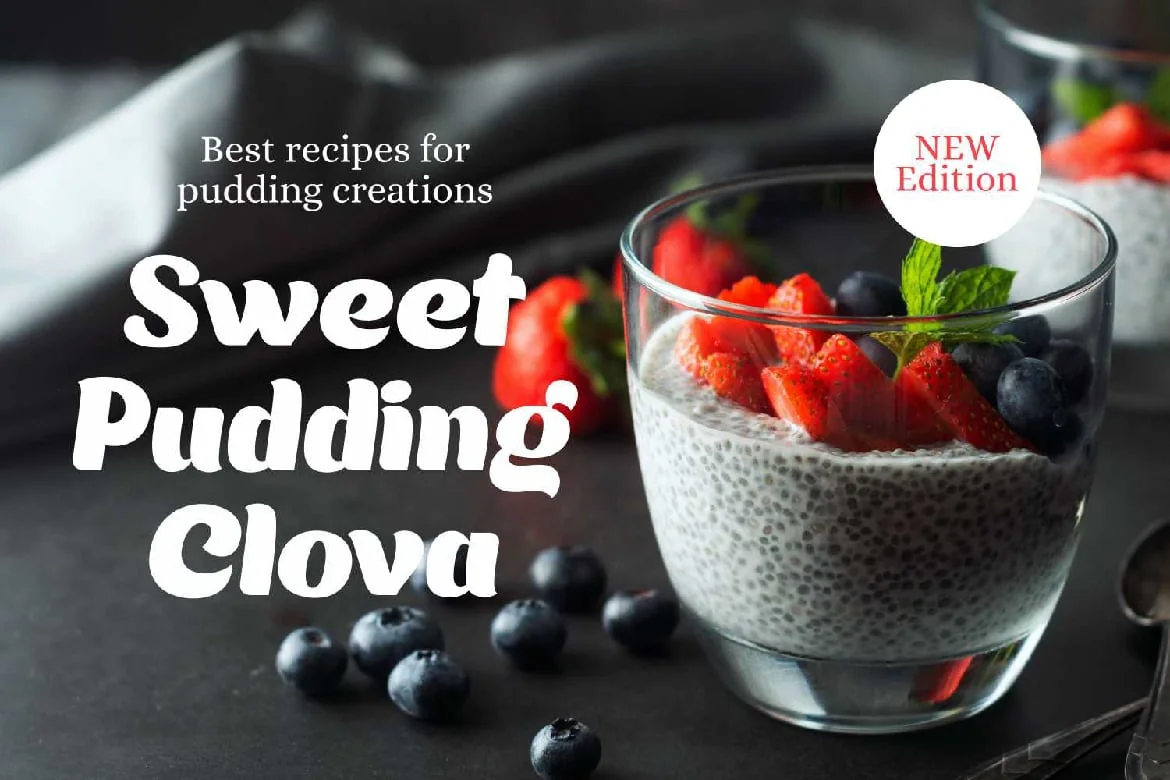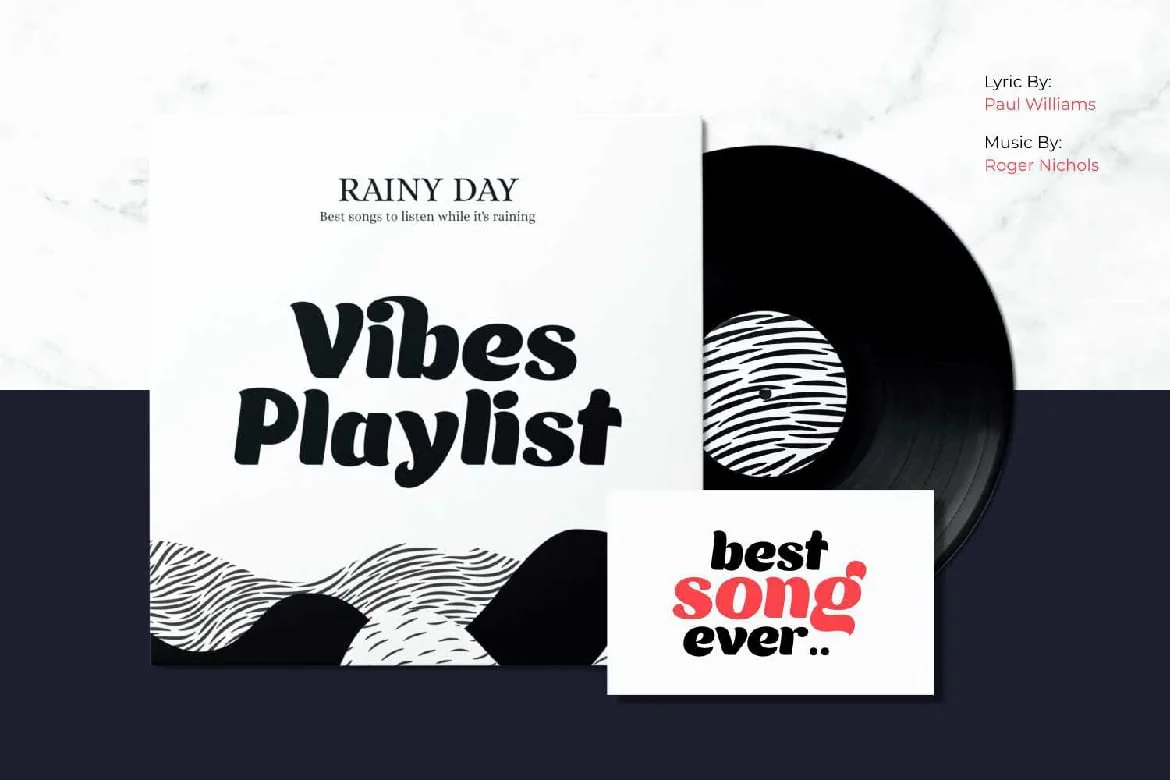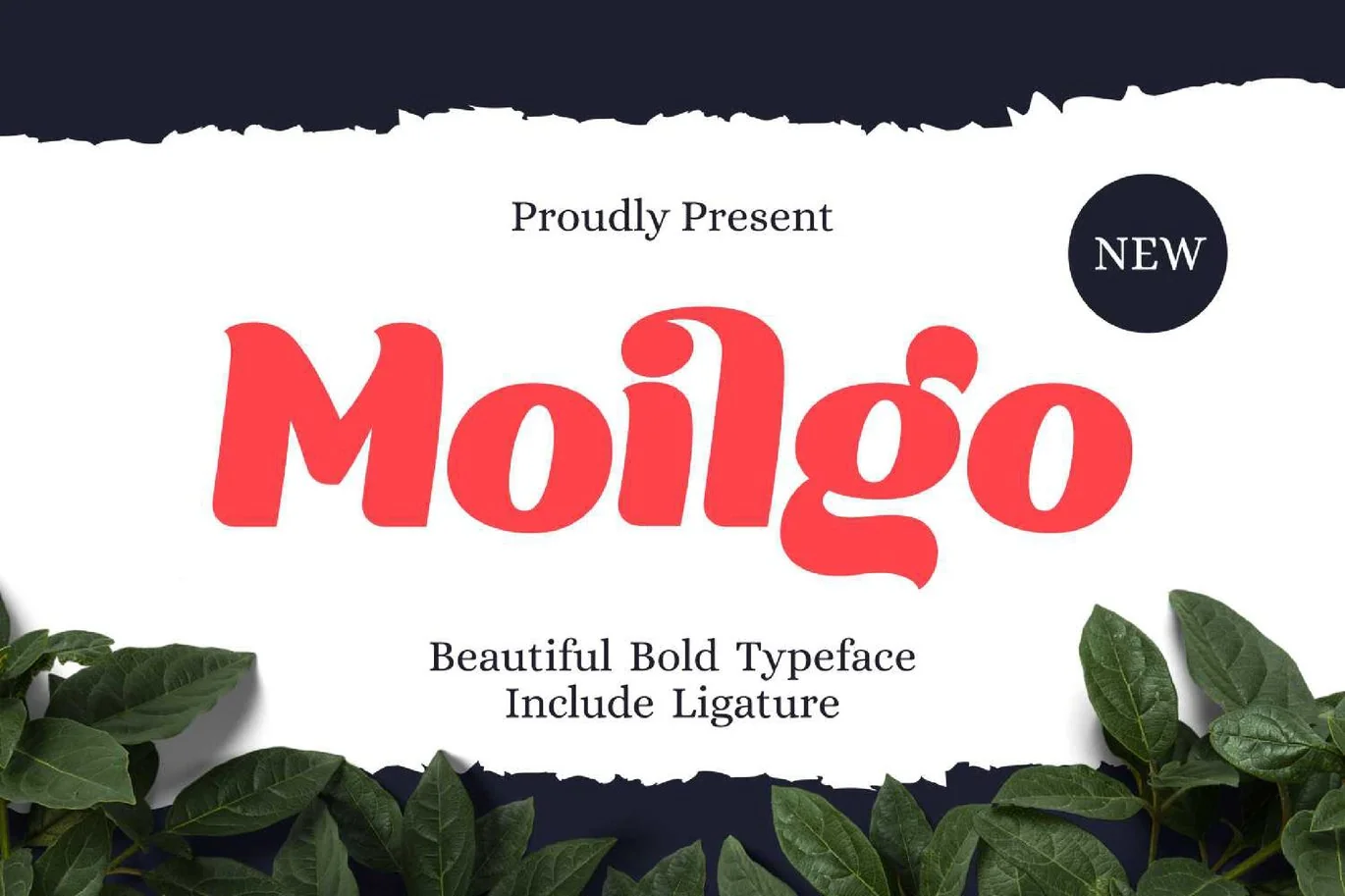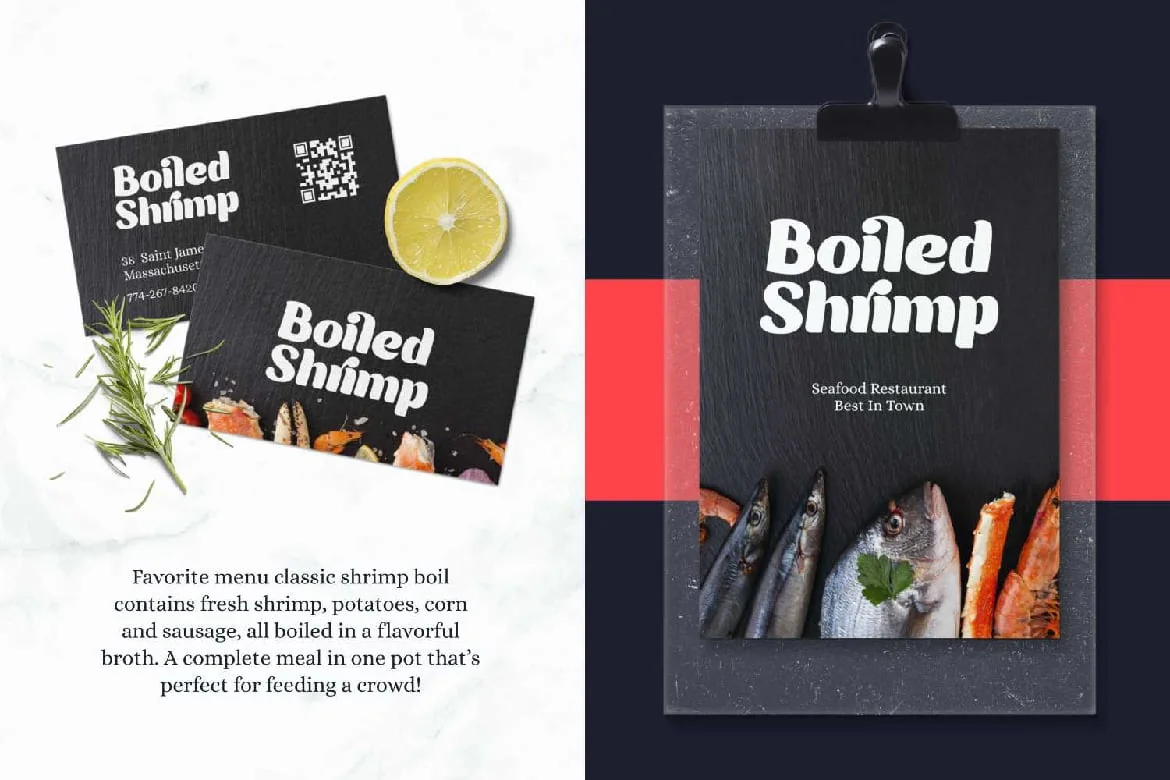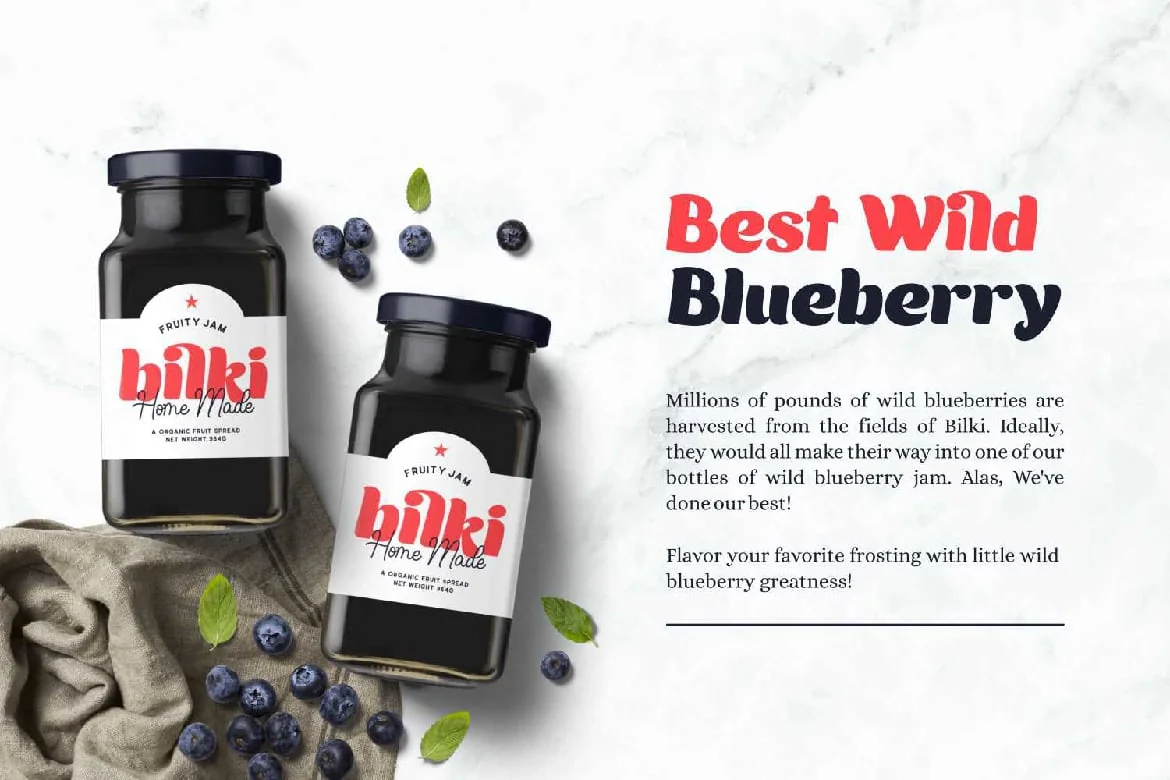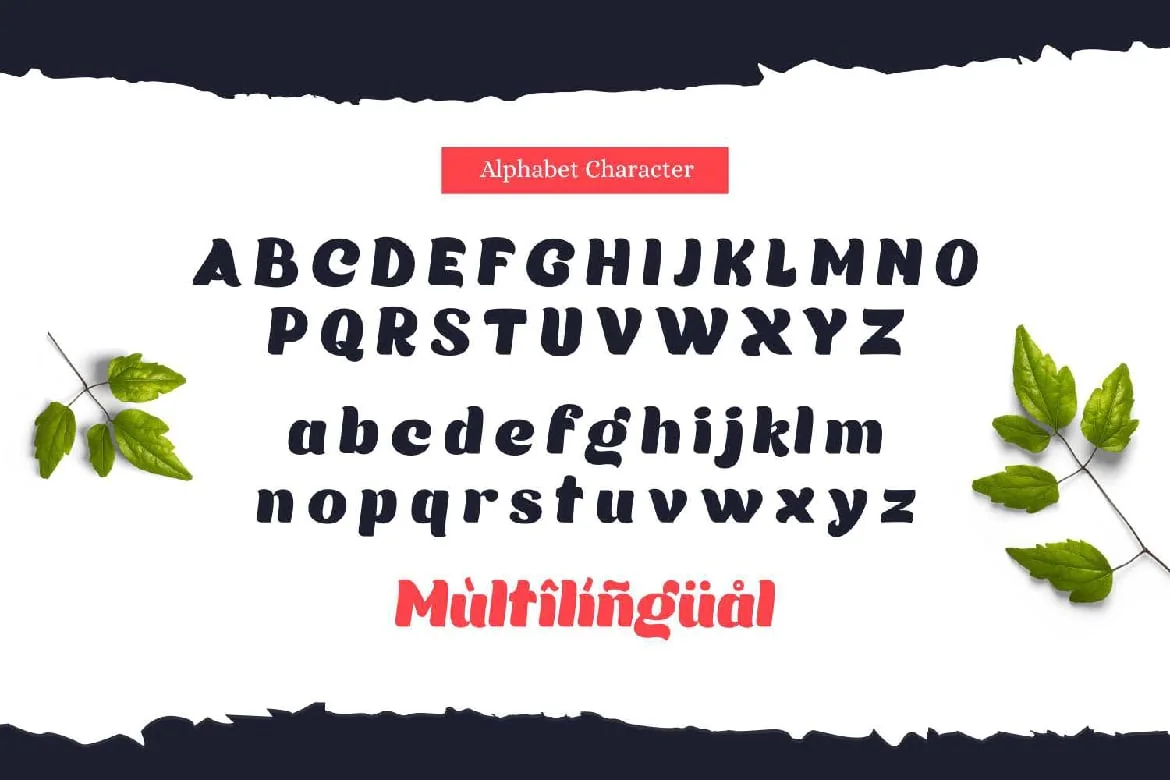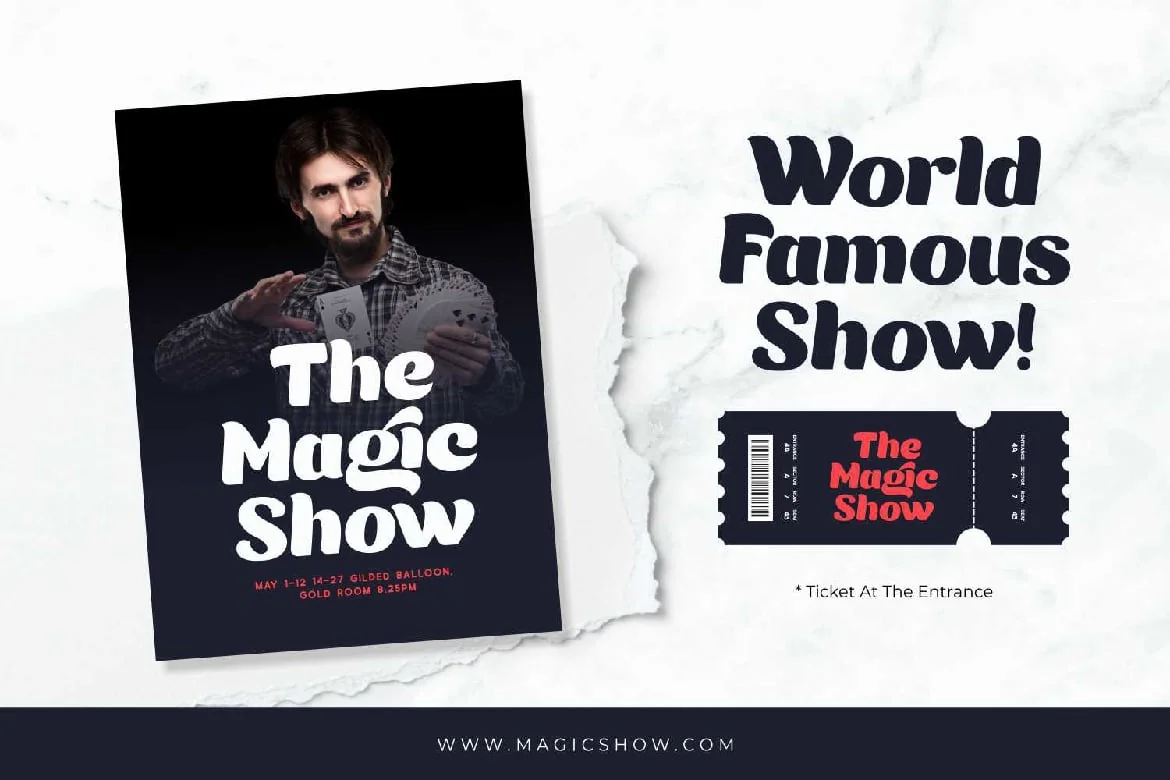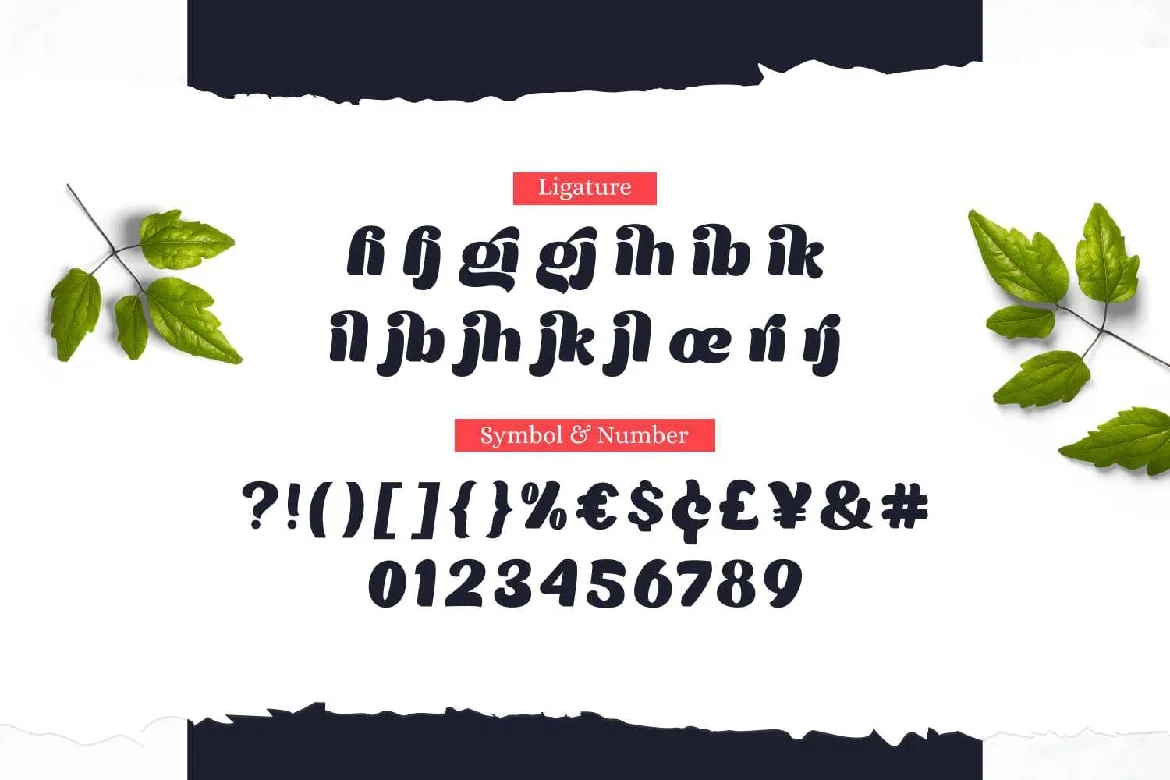
Moilgo – Beautiful Bold Font
Moilgo is a beautiful bold typeface that was inspired by classic typefaces that are synonymous with luxury brands, beauty, and elegant curves, high contrast and an all-round feel, perfect for art projects and typography across all platforms.
Moilgo also has unique ligatures which makes it easy for you to create a logo for your personal branding and your business beautifully. Moilgo will be perfect for many projects like logos, magazines, posters, branding, packaging, quotes, blog headers, advertisements, and more.